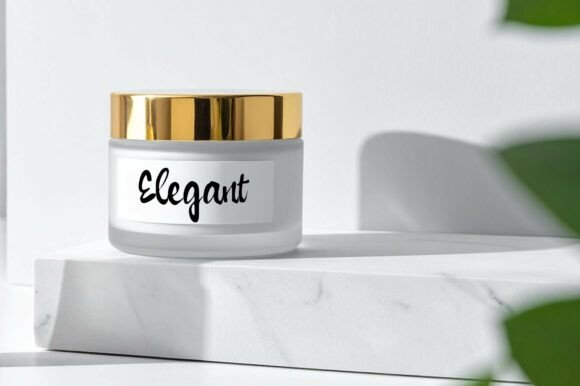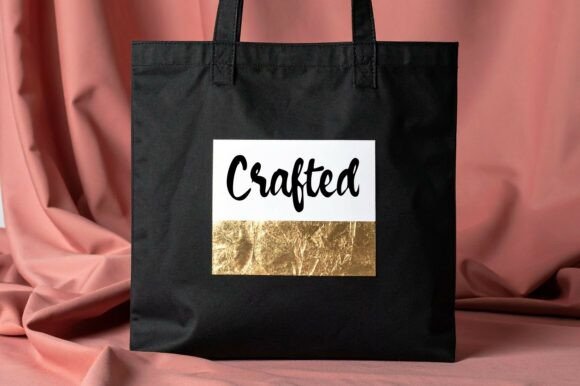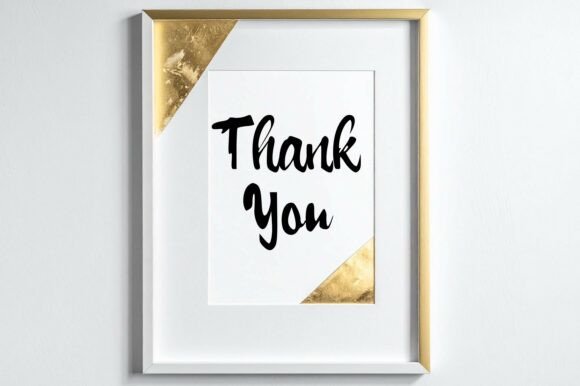
The Art of Elegant Typography: Unveiling Cetak Emas Font
Imagine yourself sitting in a quiet café, surrounded by the soothing sounds of a calligrapher’s brush strokes as they bring a beautiful script to life. The rhythmic flow of the ink on paper is mesmerizing, and you can’t help but feel a sense of wonder at the beauty of the written word. This is the magic of Cetak Emas Font, a refined cursive font that captures the essence of calligraphy and infuses it with a personal touch.
Cetak Emas Font is more than just a typeface – it’s an experience. Designed to evoke the elegance and sophistication of a bygone era, this font is perfect for designers who want to add a touch of luxury and style to their projects. With its unique blend of precision and personal touch, Cetak Emas Font is the ultimate choice for premium or personalized items that demand a unique charm.
Cetak Emas Font Key Features
- Font Family: Cetak Emas Font is a unique and elegant script font designed for various applications, including printing and digital media.
- Unique Characteristics: Features intricate details and ornaments, making it ideal for creating luxurious and sophisticated designs, such as invitations, certificates, and business cards.
Cetak Emas Font Review
As a designer, I was excited to dive into the Cetak Emas Font, a beautiful script font that’s perfect for adding a touch of elegance to your designs. Here’s my honest review:
- The Cetak Emas Font is incredibly versatile and can be used for a wide range of projects, from invitations to branding materials.
- The font’s intricate details and flourishes make it perfect for adding a touch of sophistication to your designs.
- The font’s OpenType features allow for a high degree of customization, making it easy to create unique and personalized designs.
- The font may not be the best choice for projects that require a more modern or edgy feel, as its classic style may not fit the bill.
- The font’s complexity may make it difficult to use in certain situations, such as in small text sizes or in projects with limited design flexibility.
Overall, I’m really impressed with the Cetak Emas Font. Its beauty, versatility, and customization options make it a great choice for designers looking to add a touch of elegance to their projects. While it may not be the best fit for every project, it’s definitely a solid addition to any designer’s toolkit.
Tips for Getting the Most Out of Cetak Emas Font
1. Use Cetak Emas Font for titles and headings to add a touch of elegance.
2. Experiment with different font sizes and colors to create a unique look.
3. Combine Cetak Emas Font with other fonts to create a visually appealing design.
2. Luxury branding and packaging.
3. High-end advertising and marketing materials.
Alternatives to Cetak Emas Font
Pacifico is a beautiful, elegant script font perfect for creating a luxurious and sophisticated look. It’s ideal for use in branding, packaging, and advertising materials where a touch of sophistication is required. Pacifico has a more refined and polished look compared to Cetak Emas Font, making it a great choice for high-end designs.
Great Vibes is a modern, elegant script font that’s perfect for creating a sense of luxury and sophistication. It’s ideal for use in branding, advertising, and packaging materials where a touch of elegance is required. Great Vibes has a more refined and polished look compared to Cetak Emas Font, but with a more modern twist.